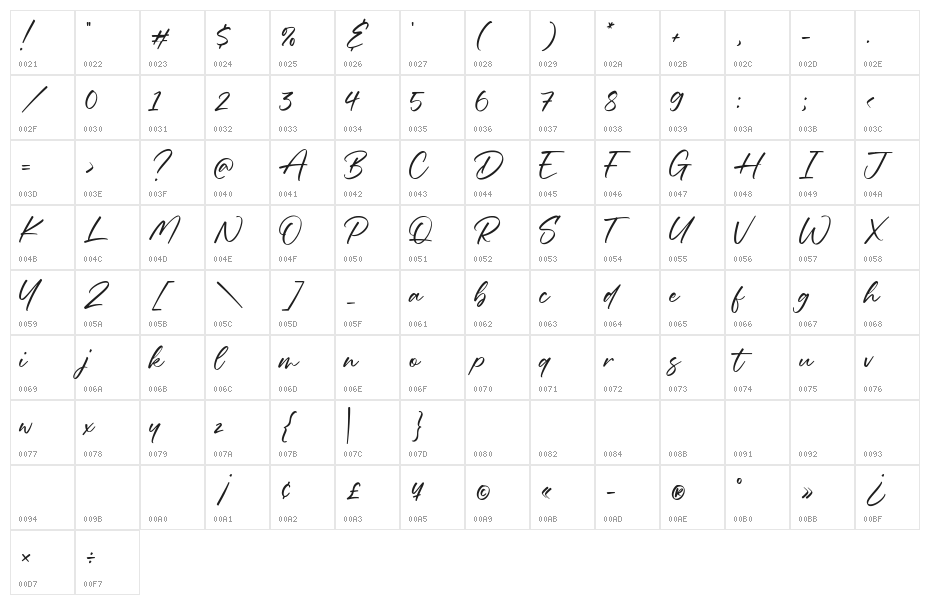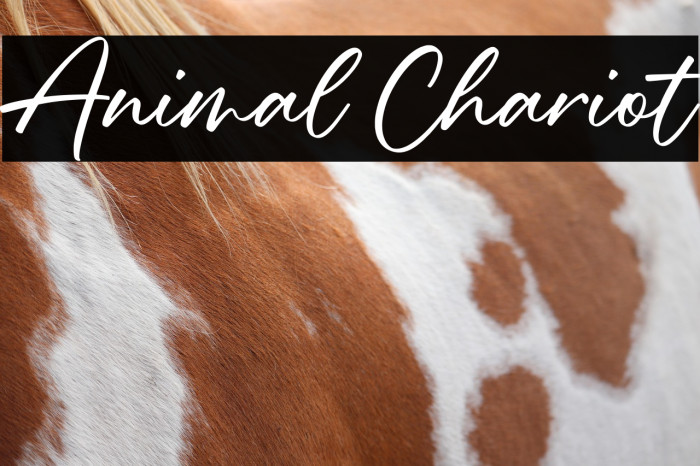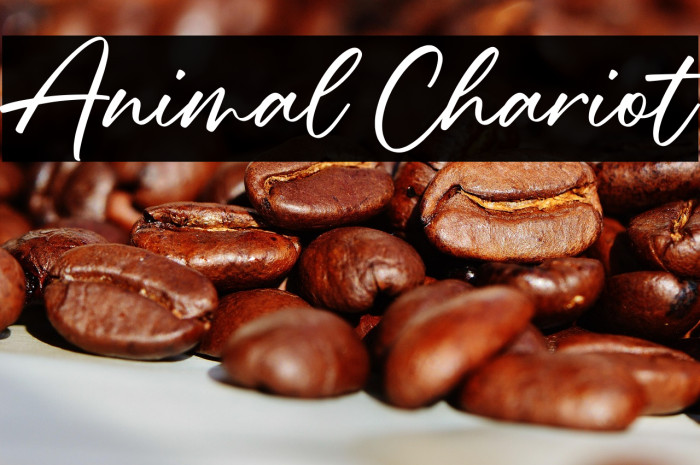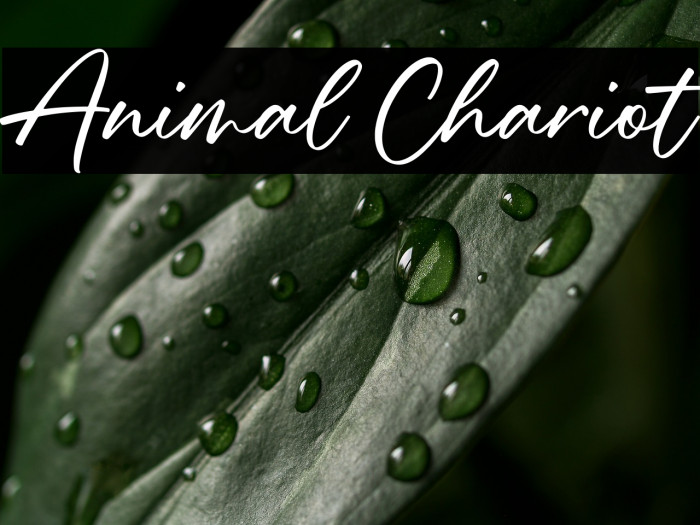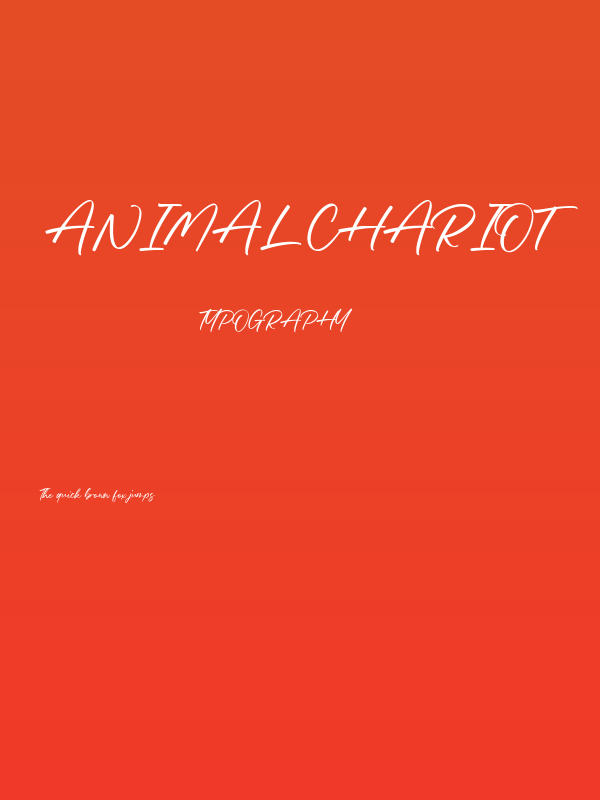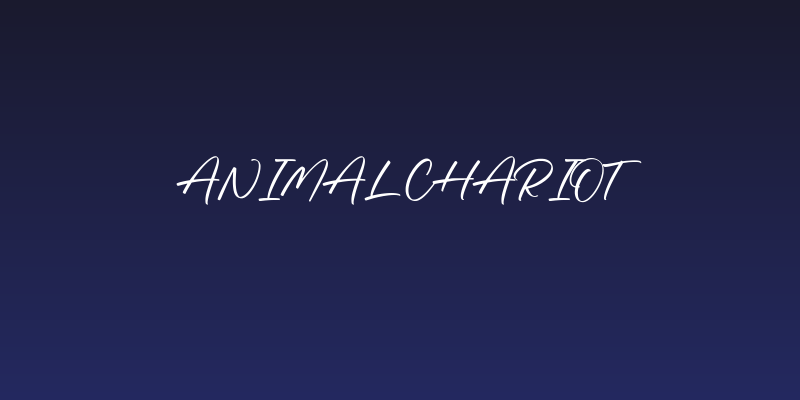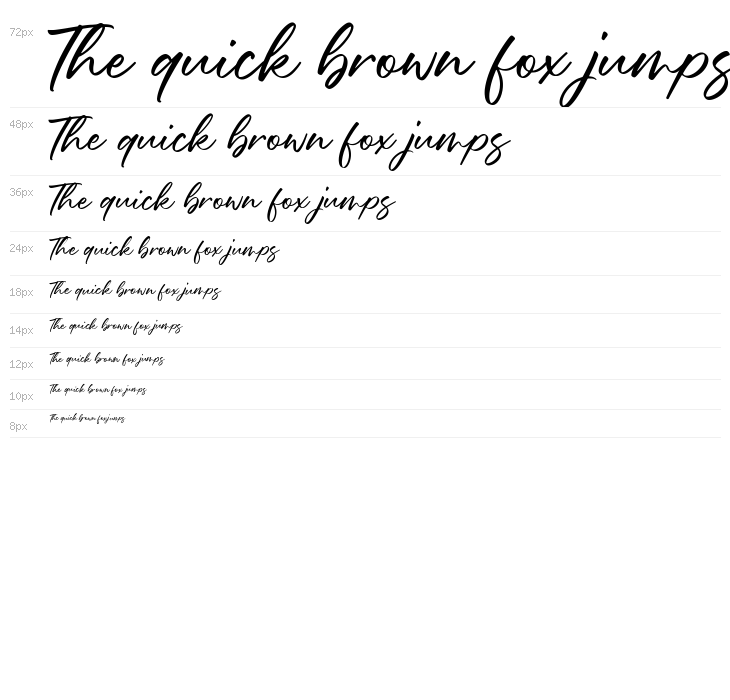
Animal Chariot Font
Animal Chariot Description
A flowing, cursive script font with a handwritten appearance, featuring smooth, connected strokes and a casual yet elegant style. The characters are slightly slanted, with moderate contrast in stroke thickness and rounded terminals.
| Overall Style | Handwritten, Decorative, Modern |
| Use Case | Logos, Headlines, Invitations, Social media graphics |
| Proposed Projects | Invitations, greeting cards, branding, social media graphics, quotes, personal notes. |